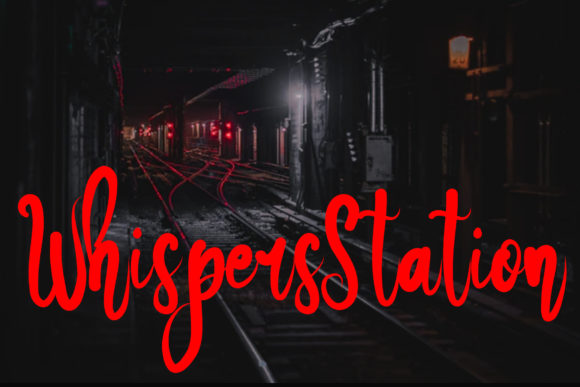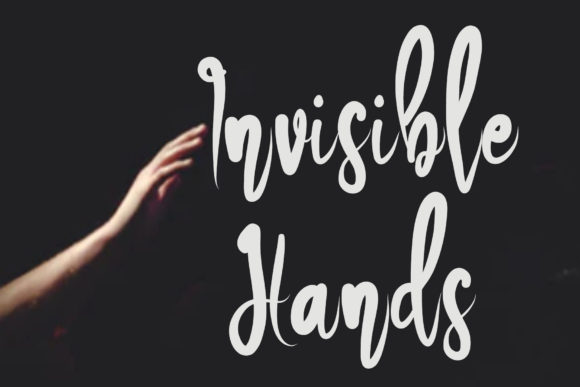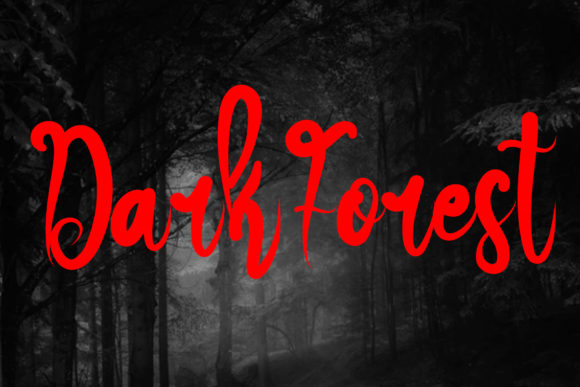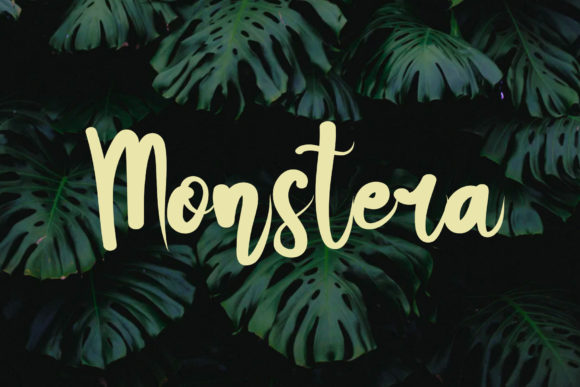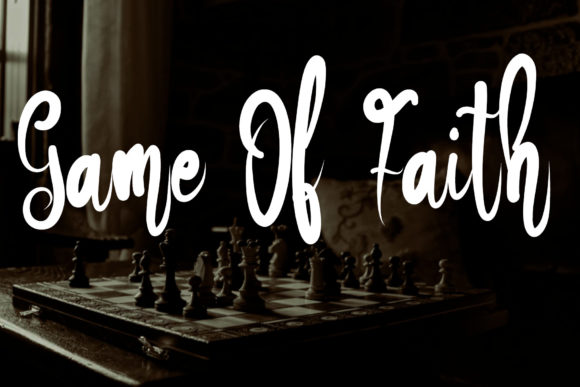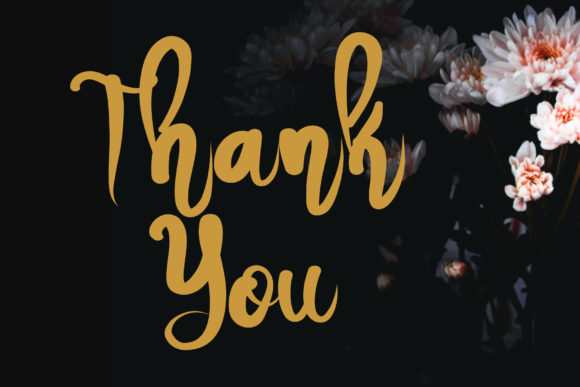
Introducing Ghost Wedding Font: The Perfect Addition to Your Creative Projects
Are you a designer or crafter looking for a unique and eye-catching font to elevate your creative projects? Look no further than the Ghost Wedding Font, a lovely script font that is sure to add a touch of charm and whimsy to any design. In this article, we’ll take a closer look at the Ghost Wedding Font, its features, and how you can use it to make your projects stand out.
What is Ghost Wedding Font?
Ghost Wedding Font is a beautiful script font that features charming, playful characters that seem to dance along the baseline. The font’s unique design makes it perfect for a variety of creative projects, from wedding invitations and stationery to branding and advertising materials. With its elegant and whimsical feel, Ghost Wedding Font is sure to add a touch of personality to any design.
Key Features of Ghost Wedding Font
- Unique and Playful Design: Ghost Wedding Font features charming, playful characters that seem to dance along the baseline, making it perfect for designs that require a touch of whimsy and personality.
- Elegant and Sophisticated: Despite its playful design, Ghost Wedding Font is also elegant and sophisticated, making it suitable for a variety of formal and informal designs.
- Highly Versatile: Ghost Wedding Font can be used for a wide range of creative projects, from wedding invitations and stationery to branding and advertising materials.
- Easy to Read: Despite its unique design, Ghost Wedding Font is highly legible and easy to read, making it perfect for designs that require a clear and concise message.
How to Use Ghost Wedding Font in Your Designs
Ghost Wedding Font is a highly versatile font that can be used in a variety of creative projects. Here are a few ideas to get you started:
- Wedding Invitations and Stationery: Ghost Wedding Font is perfect for wedding invitations, stationery, and other wedding-related materials. Its elegant and whimsical design makes it ideal for formal and informal wedding designs.
- Branding and Advertising: Ghost Wedding Font can be used to add a touch of personality to branding and advertising materials, such as logos, business cards, and brochures.
- Digital and Print Materials: Ghost Wedding Font can be used for both digital and print materials, including social media graphics, email templates, and print advertisements.
Tips for Using Ghost Wedding Font
Here are a few tips for using Ghost Wedding Font in your designs:
- Use it Sparingly: Ghost Wedding Font is a highly decorative font, so it’s best to use it sparingly to avoid overwhelming the design.
- Pair it with a Simple Font: Pair Ghost Wedding Font with a simple font to create contrast and make the design more readable.
- Experiment with Colors and Textures: Ghost Wedding Font looks great in a variety of colors and textures, so don’t be afraid to experiment and find the perfect combination for your design.
Ghost Wedding Font is a beautiful and versatile script font that is perfect for designers and crafters looking to add a touch of charm and whimsy to their creative projects. With its unique and playful design, elegant and sophisticated feel, and highly legible characters, Ghost Wedding Font is sure to make your designs stand out. Whether you’re working on a wedding invitation, branding materials, or digital and print designs, Ghost Wedding Font is a great choice. So why not give it a try and see how it can elevate your creative projects?